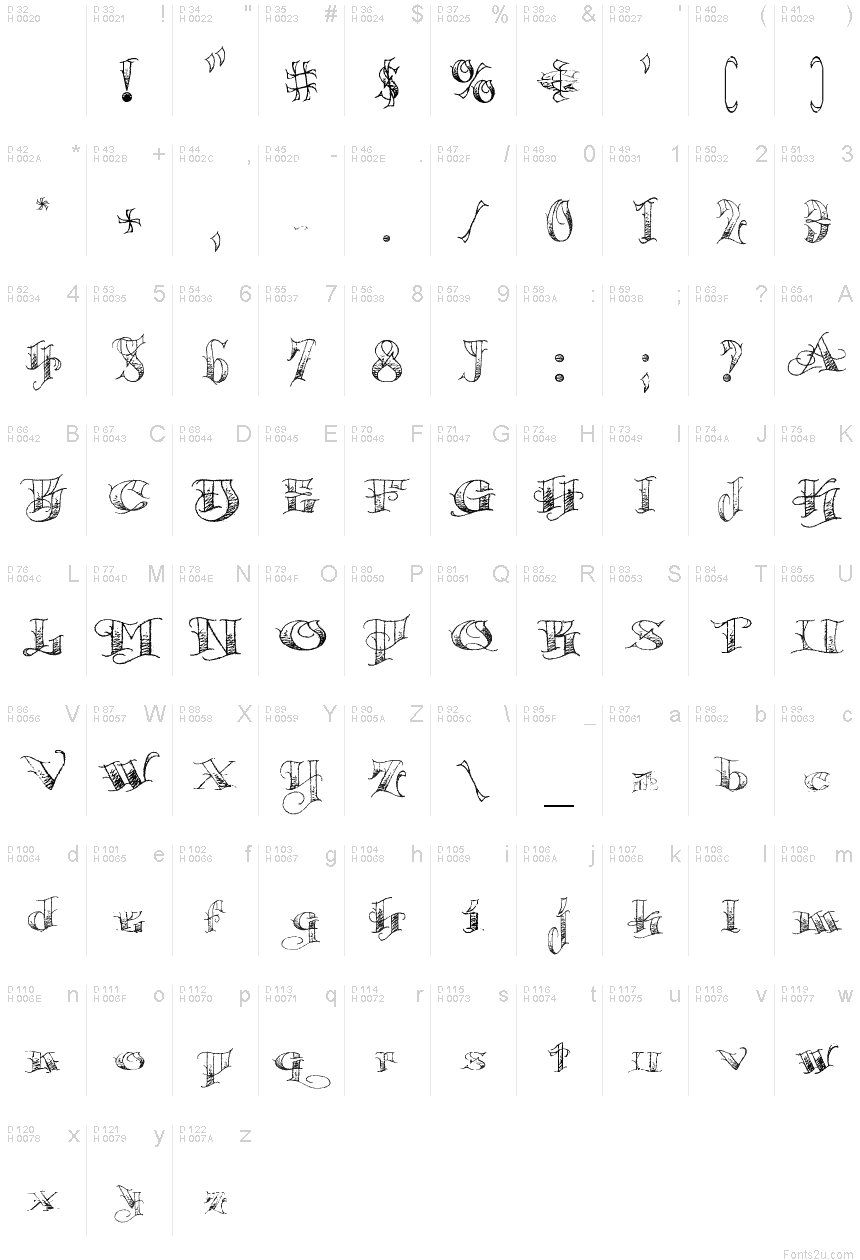
Pauls Circus Font
Pauls Circus Font is a free old-school decorative display font with the flourish of nineteenth-century show bills. Its broad, high-contrast letters are packed with looping swashes, curled serifs, and hand-drawn hatch shading that gives the forms an engraved, slightly unruly finish from a traveling press.
For circus posters and fairground signage, the ornamental silhouette supplies the spectacle before any illustration is added, yet the same vintage excess also suits album covers and theatrical event graphics. Across those uses, the shared link is performance: the curling strokes and striped shadows turn each word into part of the entertainment rather than a neutral caption.